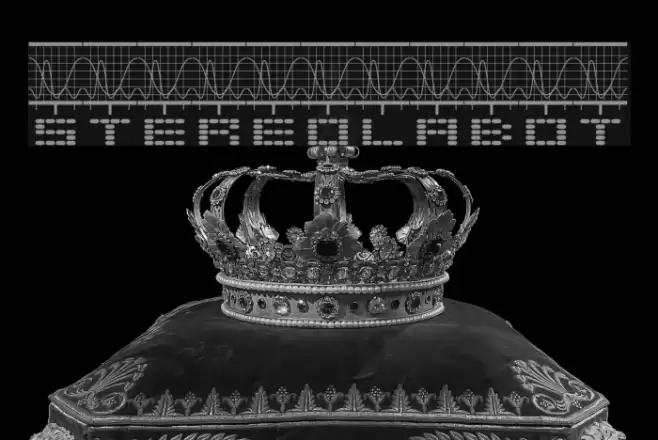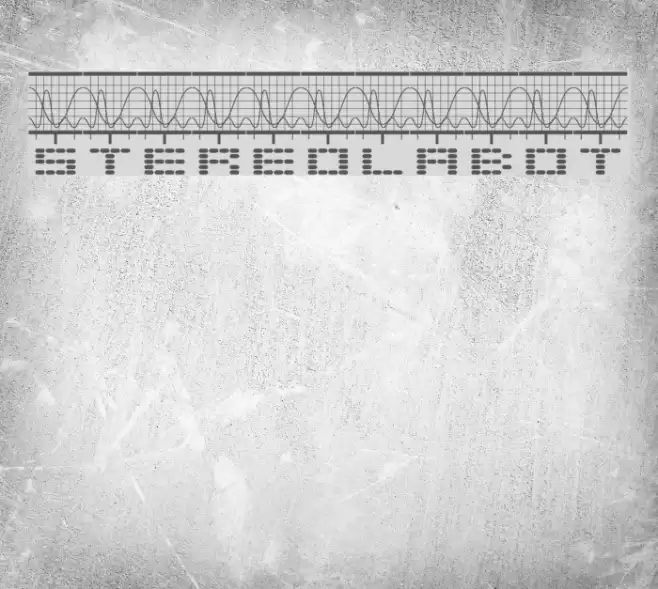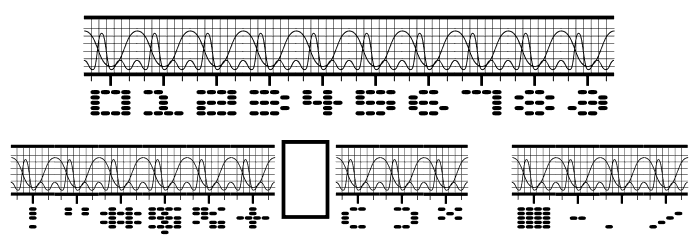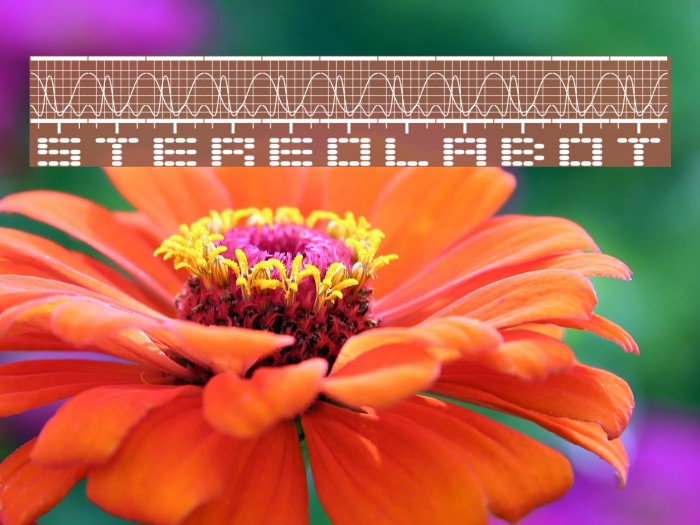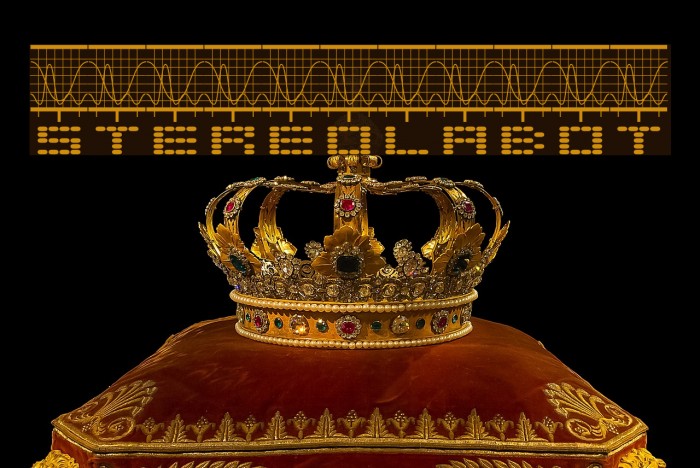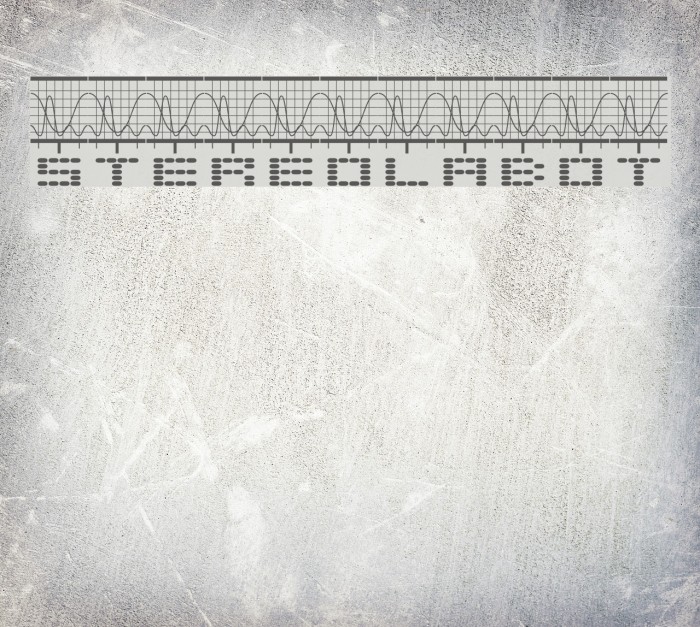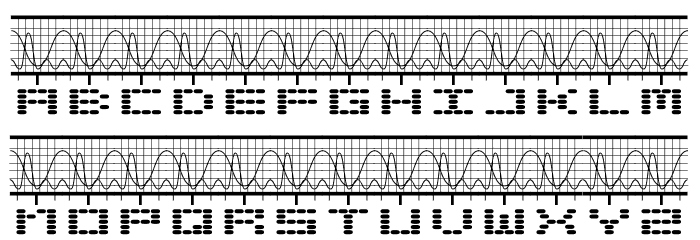
StereoLabOT Font
StereoLabOT Description
This font features a distinctive dotted matrix style, reminiscent of digital displays or retro computer screens. Each character is composed of a grid of dots, creating a pixelated effect that is both modern and nostalgic. The uppercase and lowercase letters maintain a consistent height, contributing to a uniform appearance. Numbers and special characters follow the same dot matrix pattern, ensuring cohesive design across all glyphs. The font's geometric precision and uniformity make it ideal for projects that require a digital or technical aesthetic.
A pixelated dot matrix font with a digital, retro feel from Uncategorized fonts.
- Proposed Projects: Ideal for digital displays, retro-themed designs, tech branding, and video game graphics.
- Use Case: Logos, Headlines, Digital displays